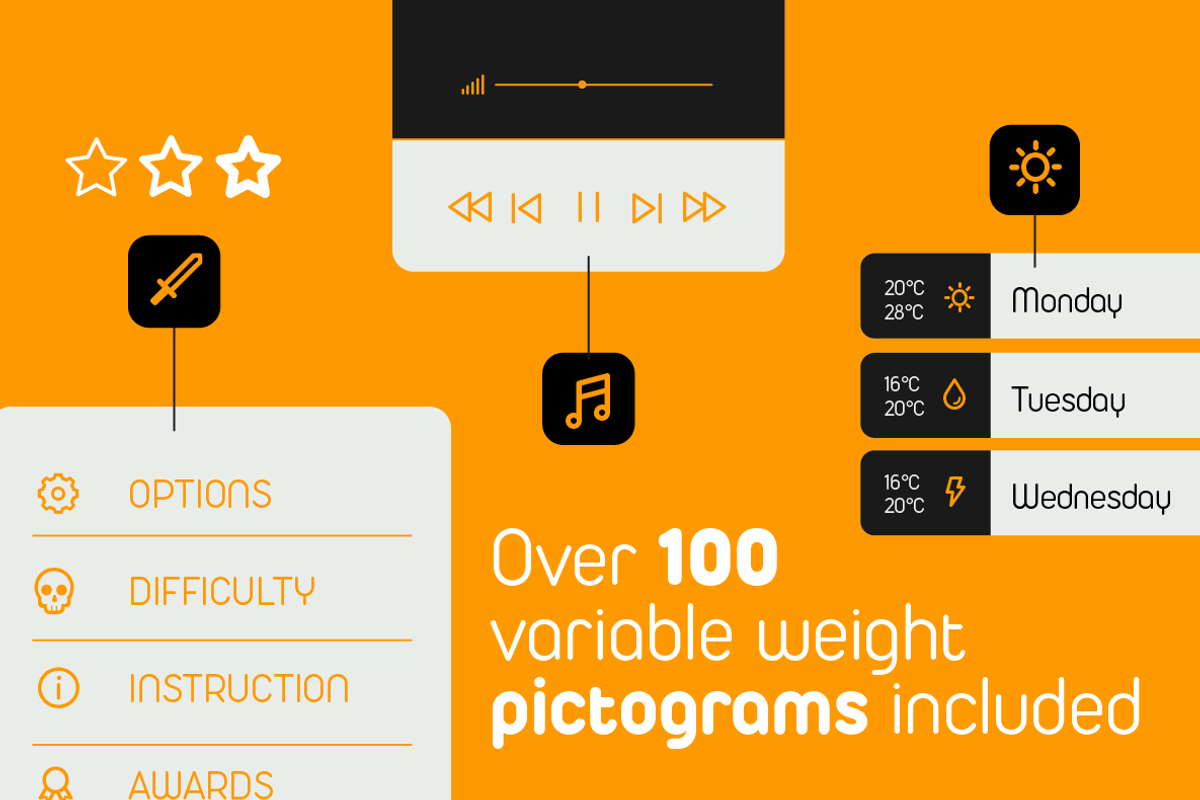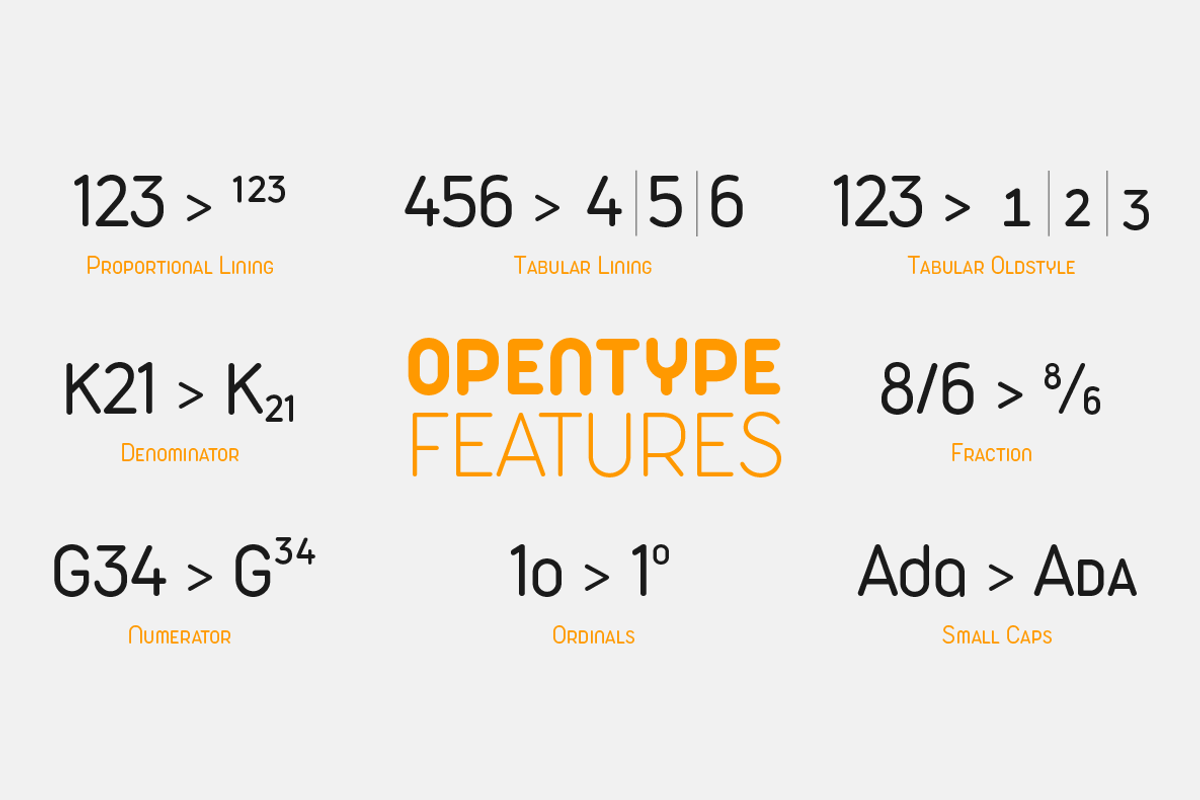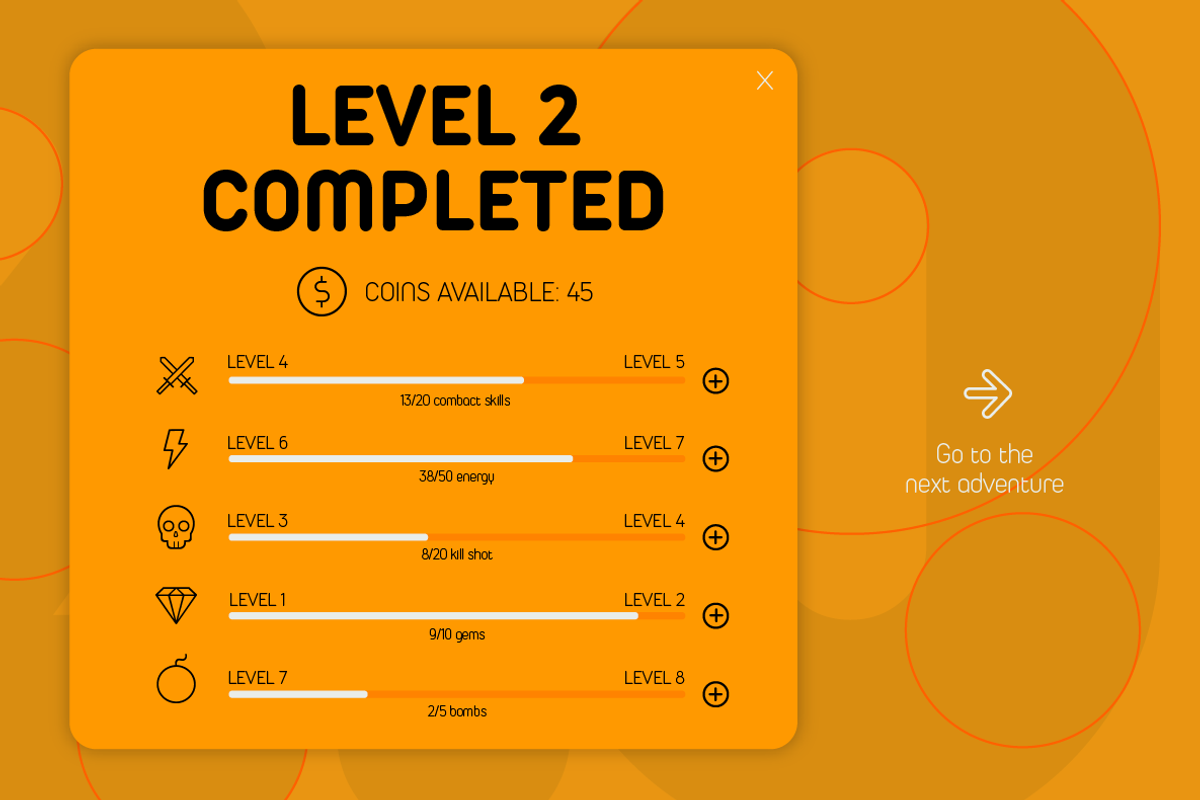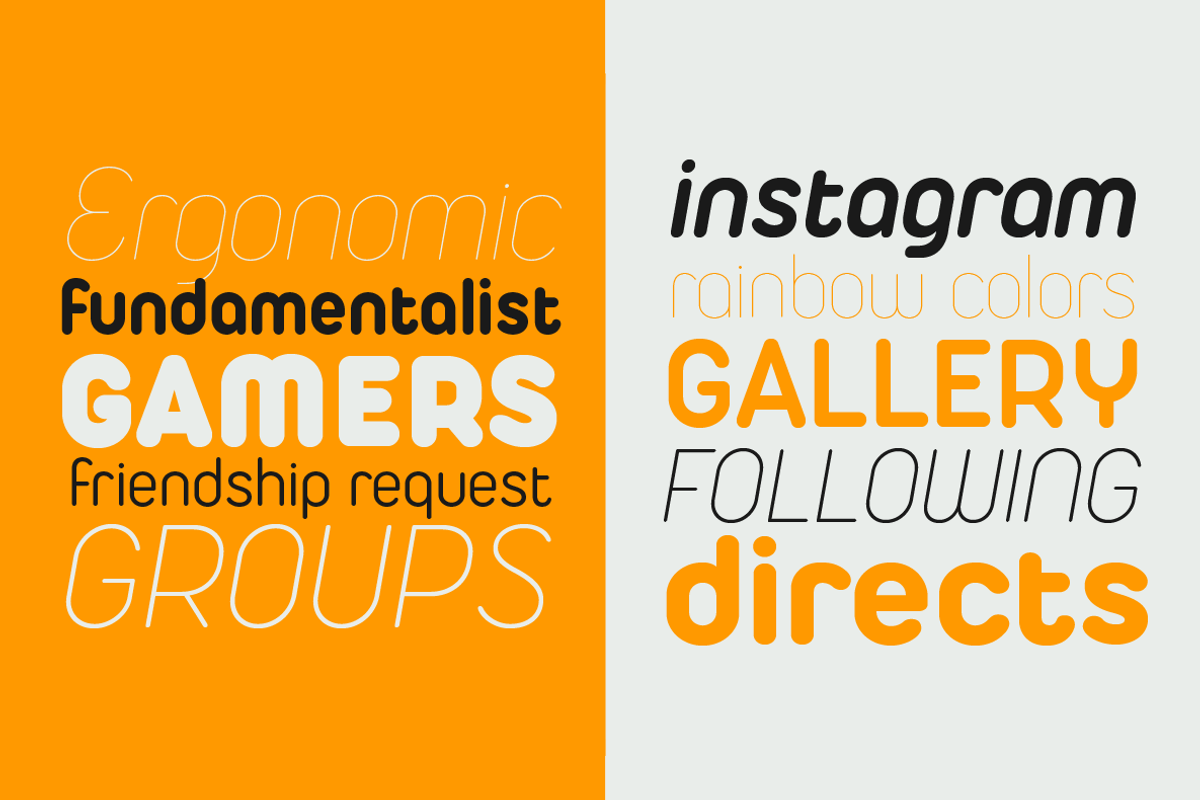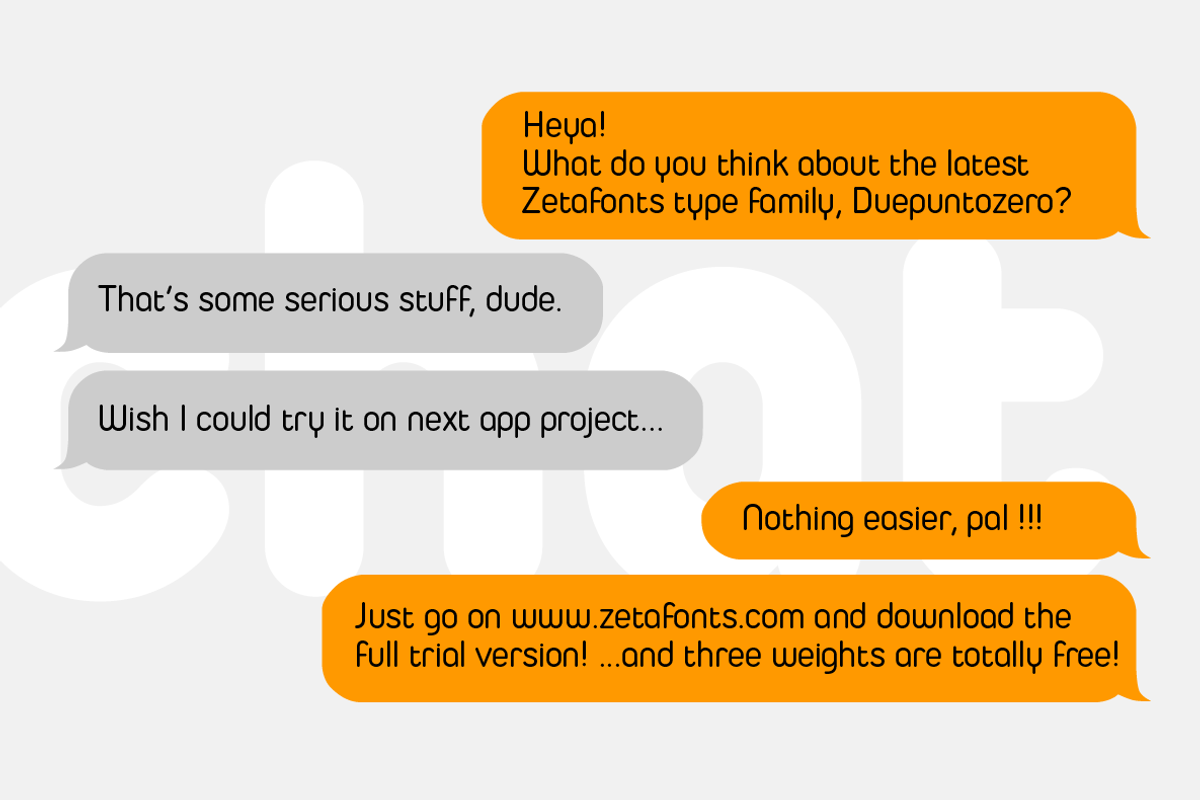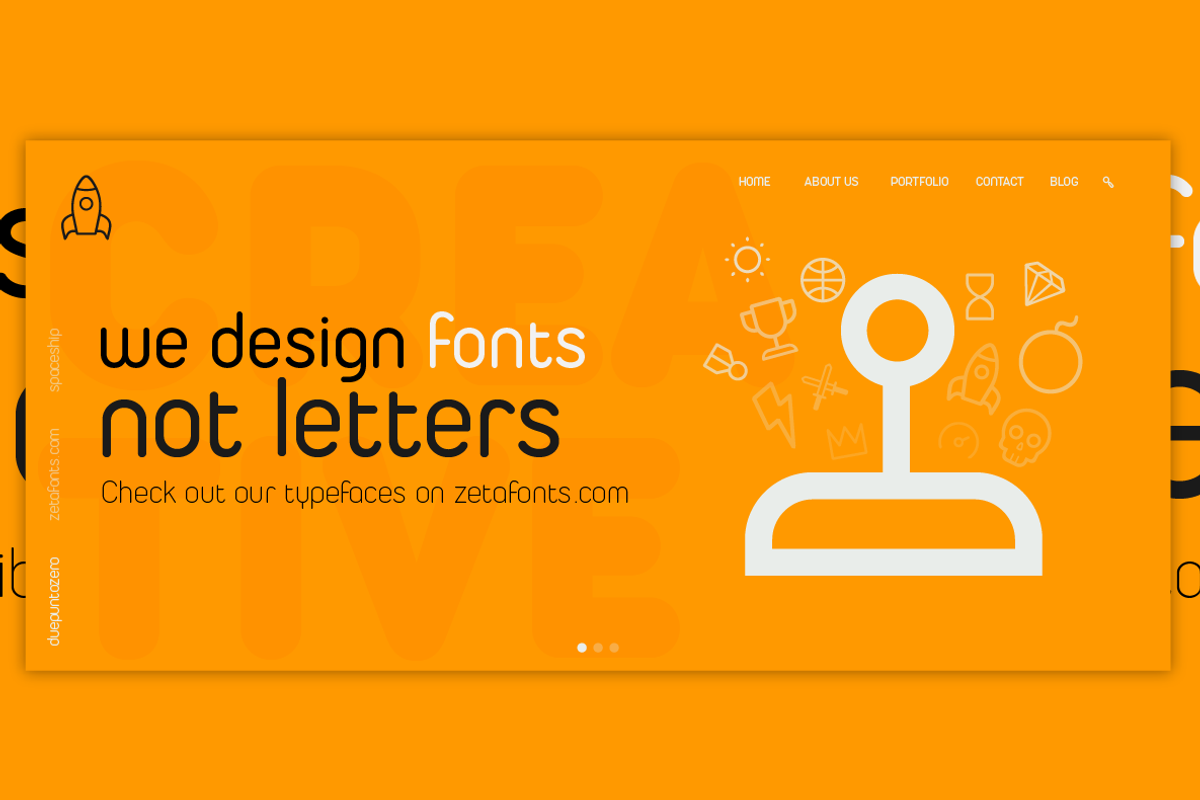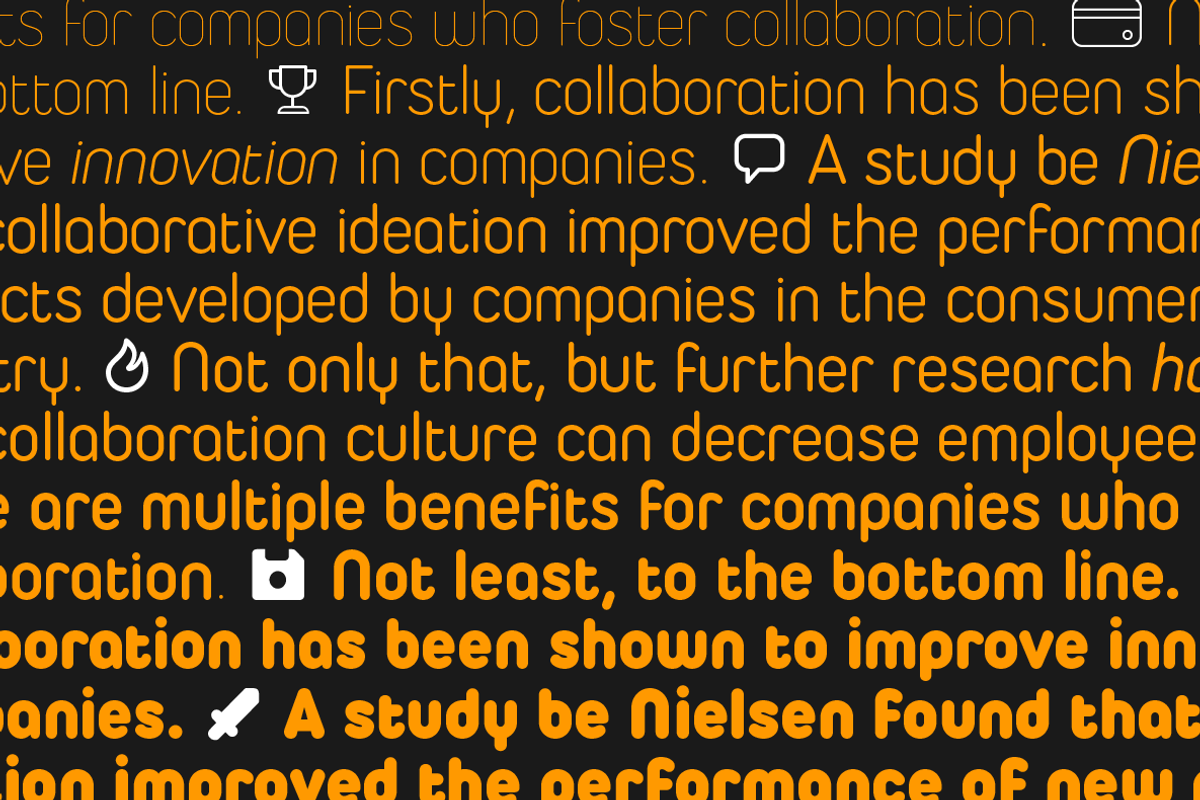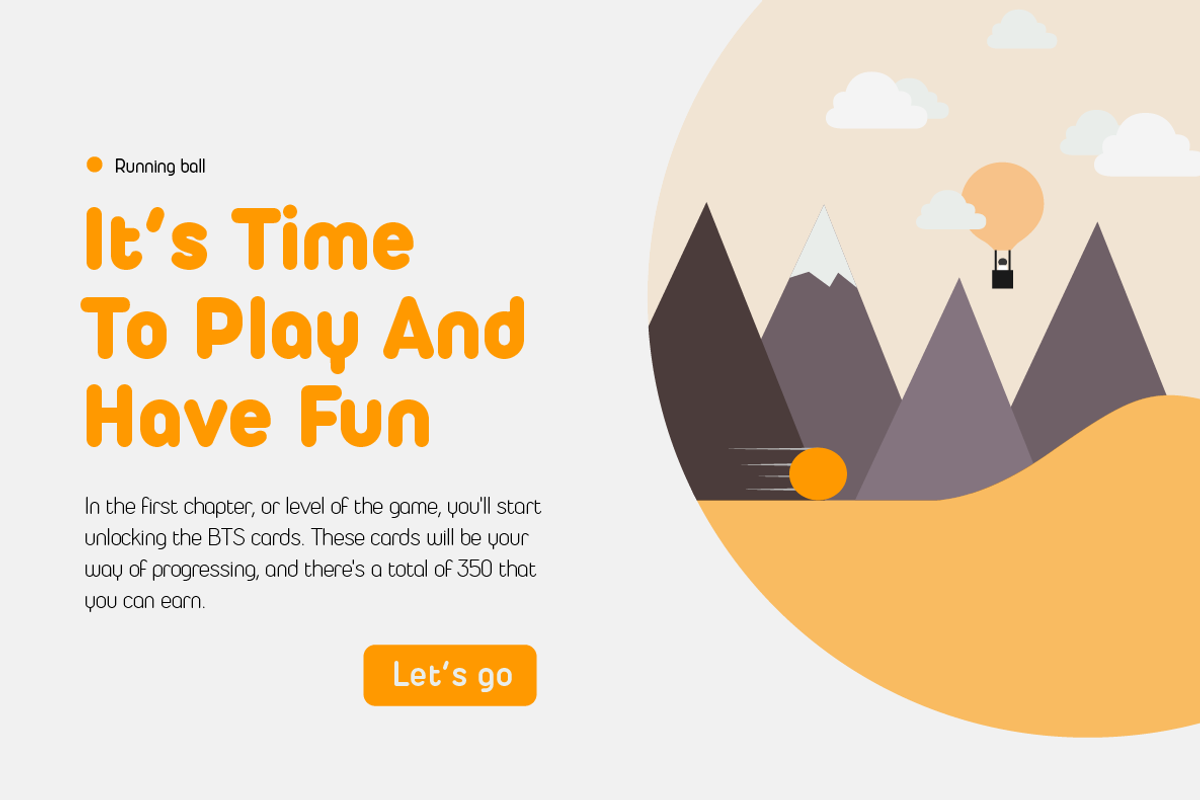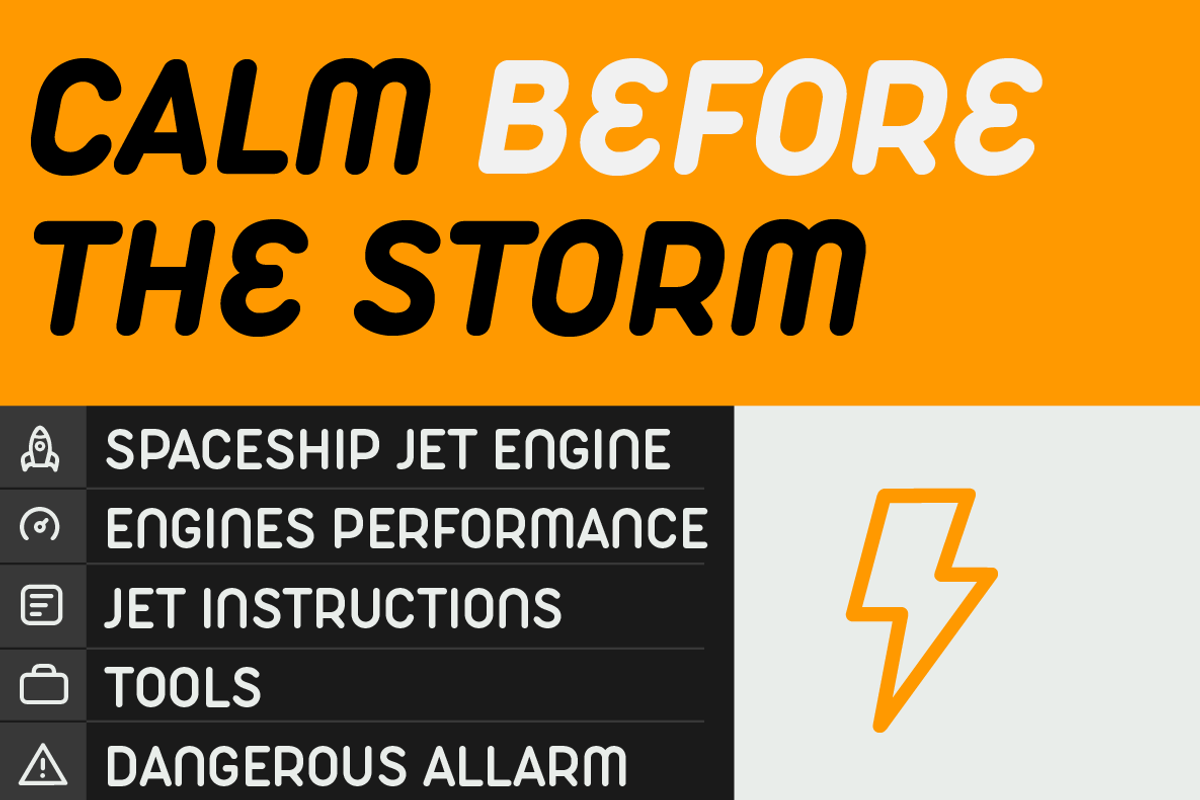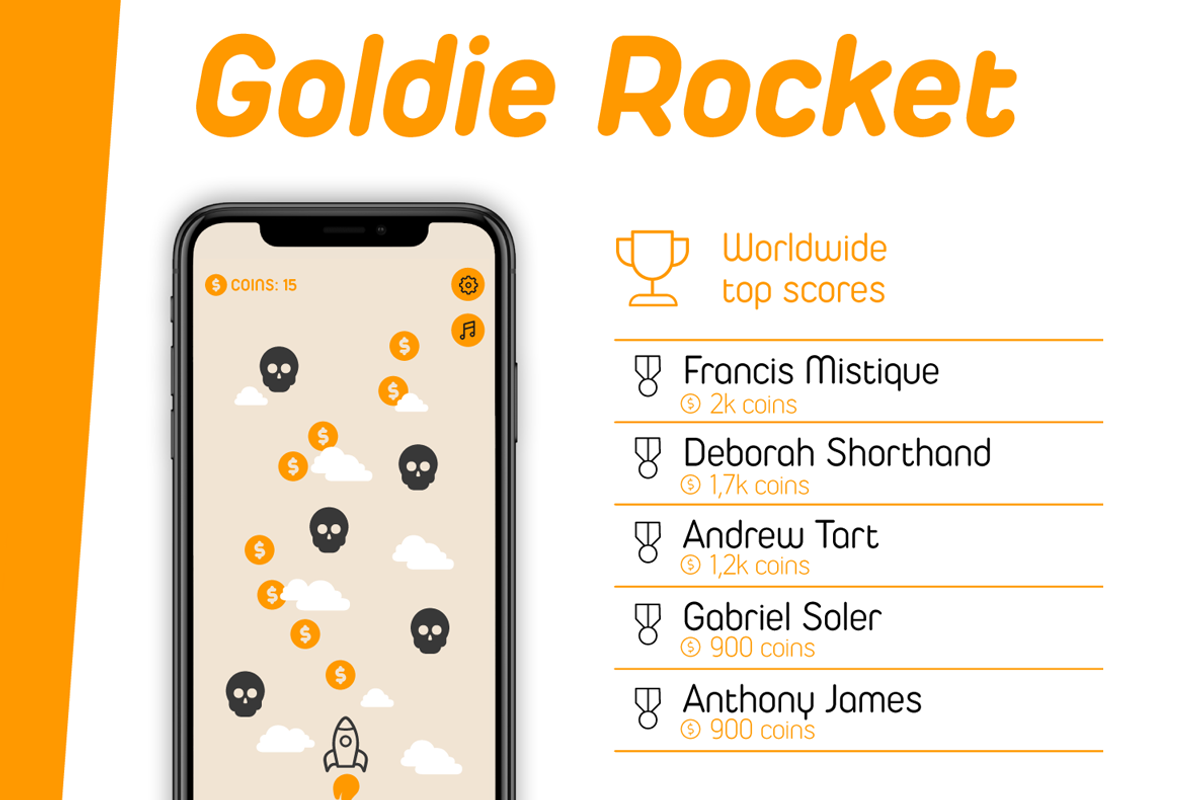
Created as a logo typeface in 2004 by Francesco Canovaro, Duepuntozero is one of Zetafonts classic typefaces. A monolinear sans serif typeface with rounded corners and condensed proportions, strictly based on modular geometric design, it was at first designed in five weights to be used as a condensed companion typeface to the rounded display family Arista. In 2019 the family was completely redesigned by the Zetafonts Team, expanding the original character set to include cyrillic and greek glyphs and adding four extra weights and italics to the original weight range. This restored and revamped version, named Duepuntozero Pro, also includes full Open Type features for positional figures, fractions and Small Caps.
With his rounded, minimal aesthetic, Duepuntozero embodies the desire for semplicity and playfulness of contemporary mobile applications, making it a perfect choice for gaming and app interface design. Its compact design allow for maximum space saving on mobile screens when used as a text typeface, while the strictly geometric design and the extreme range of weights (including thin and black) make it excel in display, logo and editorial use. A complementary set of free icons in the same range of weights of the font is provided to help designers build consistent branding through pictograms in infographics, interfaces and editorial products.